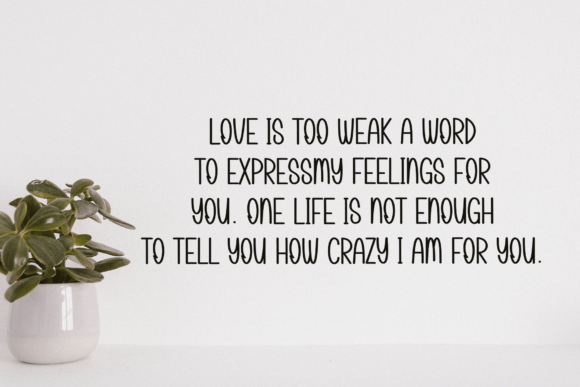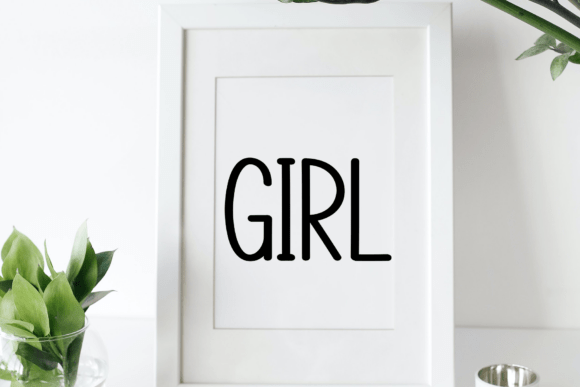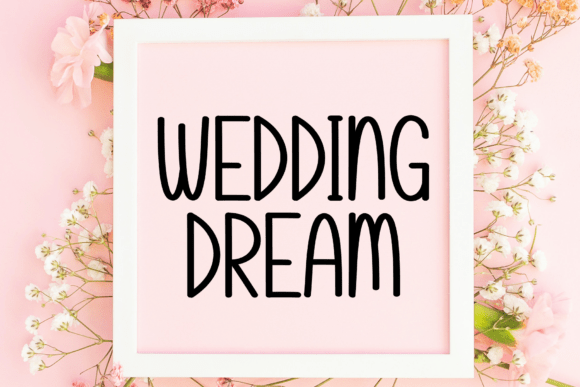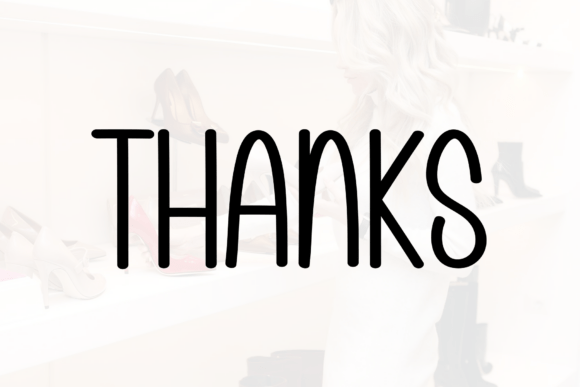
Introduction to Shine Valentine Font
Shine Valentine is a sweet and beautiful handwritten font.
Featuring characters that dance along the baseline, this font will add a cozy accent to any design project you wish to create .
Key Features of Shine Valentine Font
Why Choose Shine Valentine Font?
Shine Valentine Font offers exceptional quality and versatility, making it a valuable addition to your design toolkit. Whether you’re creating for personal projects or commercial use, Shine Valentine Font delivers professional results.